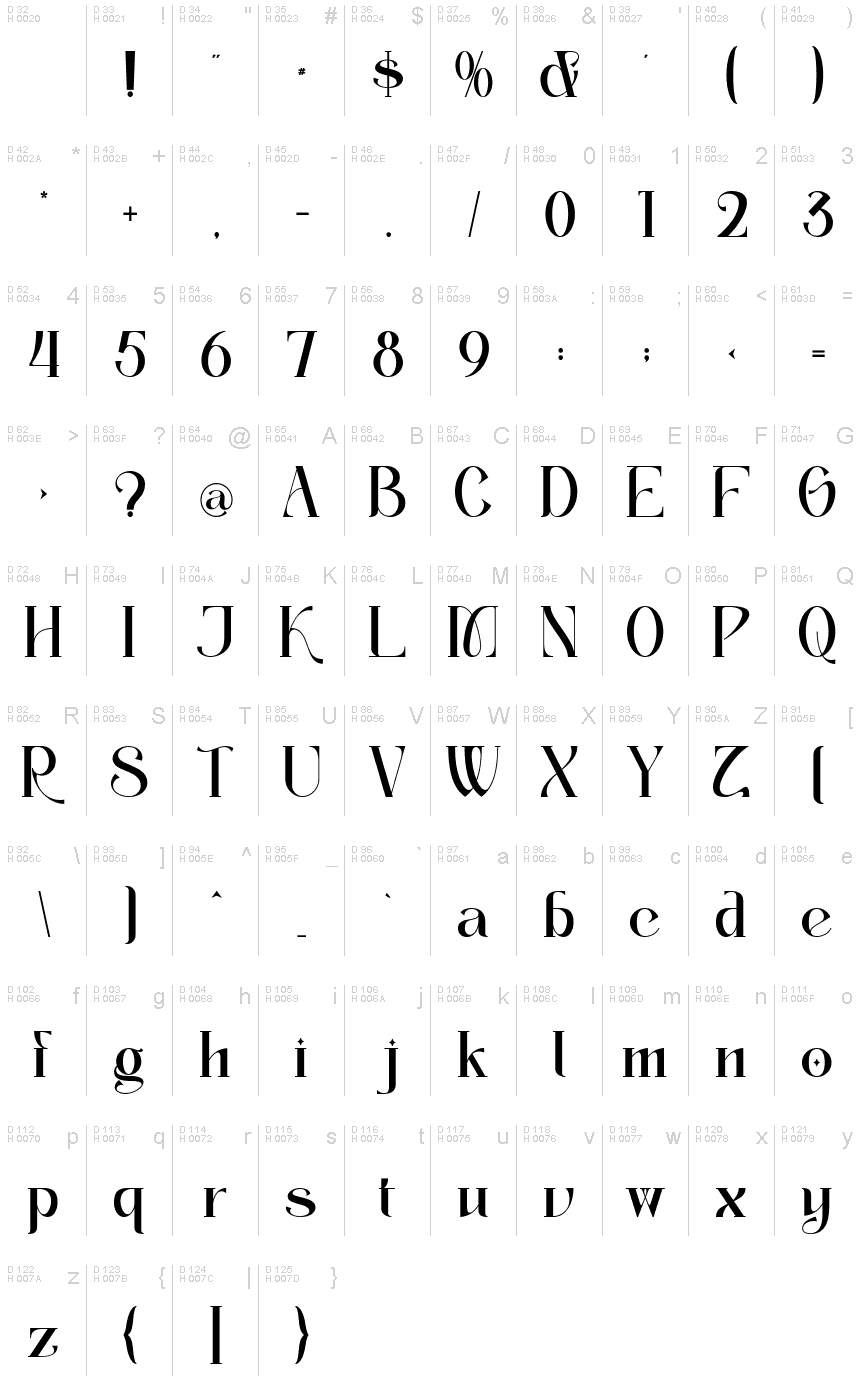
Goldfish, crafted by the skilled hands at Letterara, stands as an embodiment of sophistication in the realm of typography.
This elegant serif font boasts a semi-light weight that dances gracefully on the page, lending a contemporary yet classic feel to any project it graces. Its distinctive style resonates with a stylish and glam vibe, making it an impeccable choice for those seeking to infuse their work with a touch of modern elegance.
Whether you're aiming to elevate your branding, captivate in print media or enchant through digital designs, Goldfish is tailored to bring your creative visions to life with its artistic finesse and versatile charm.